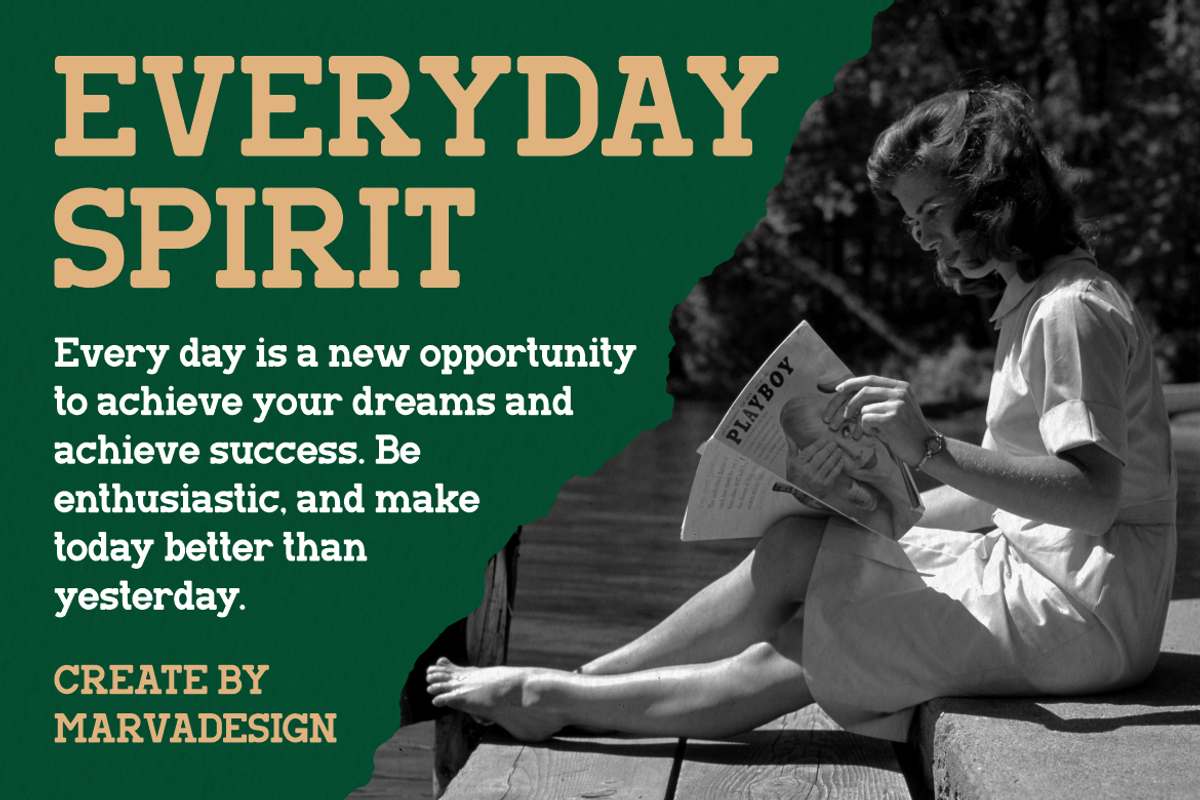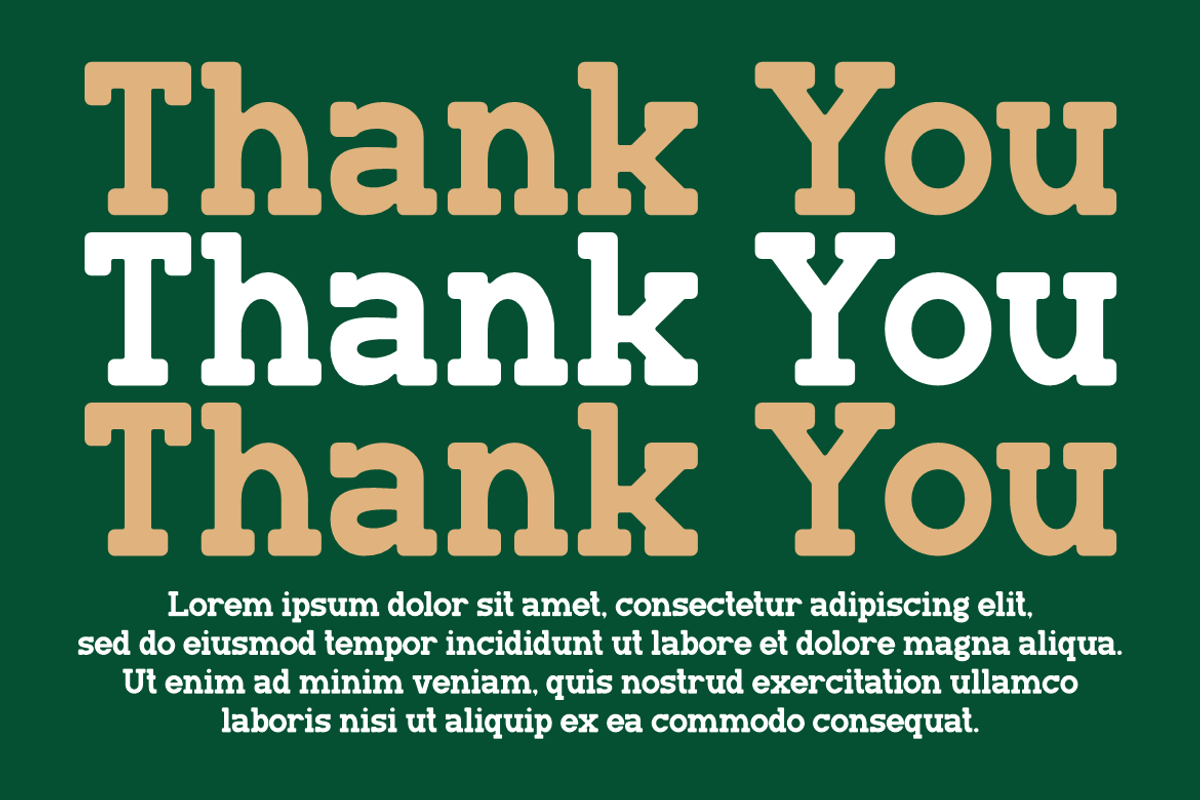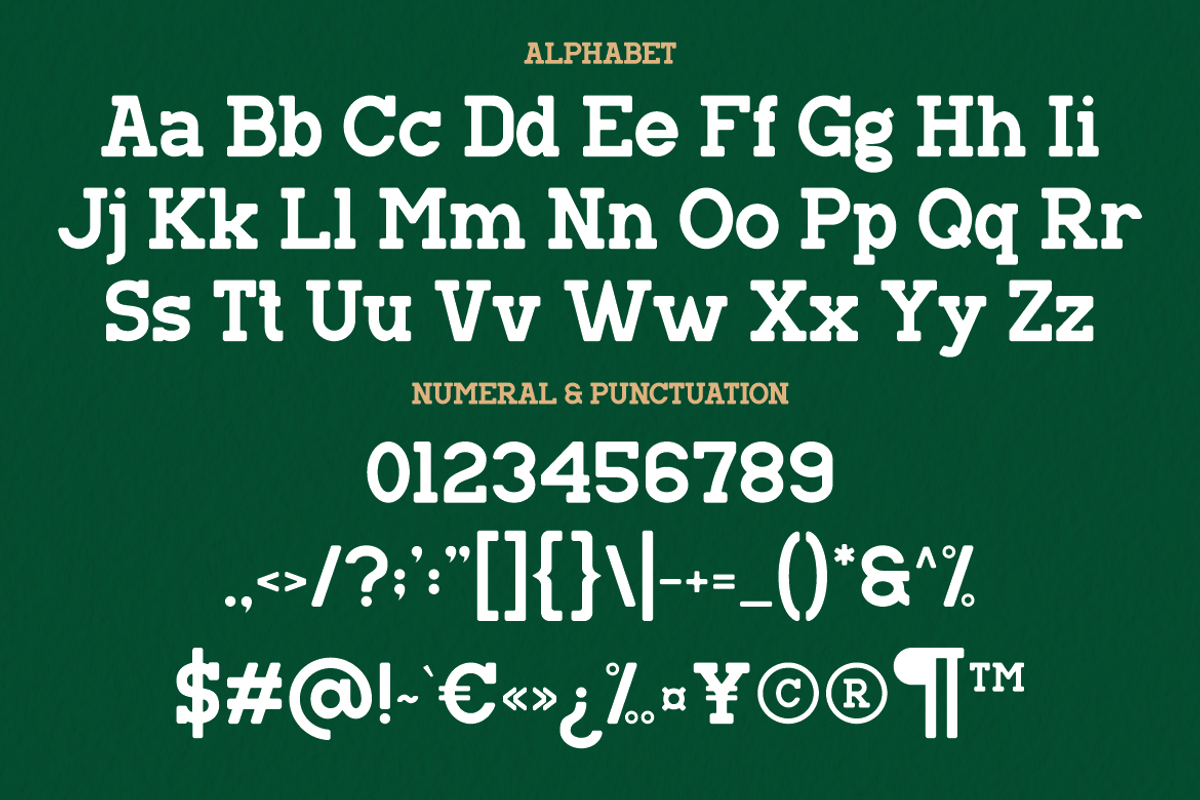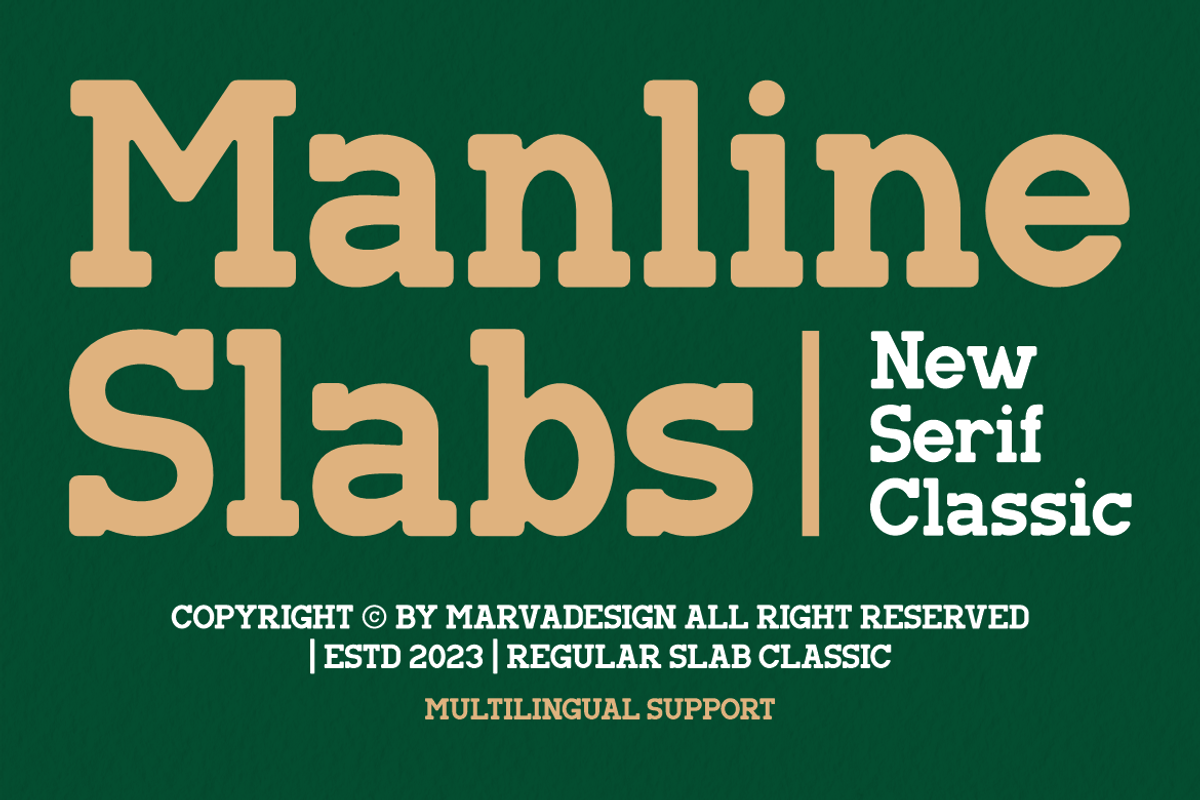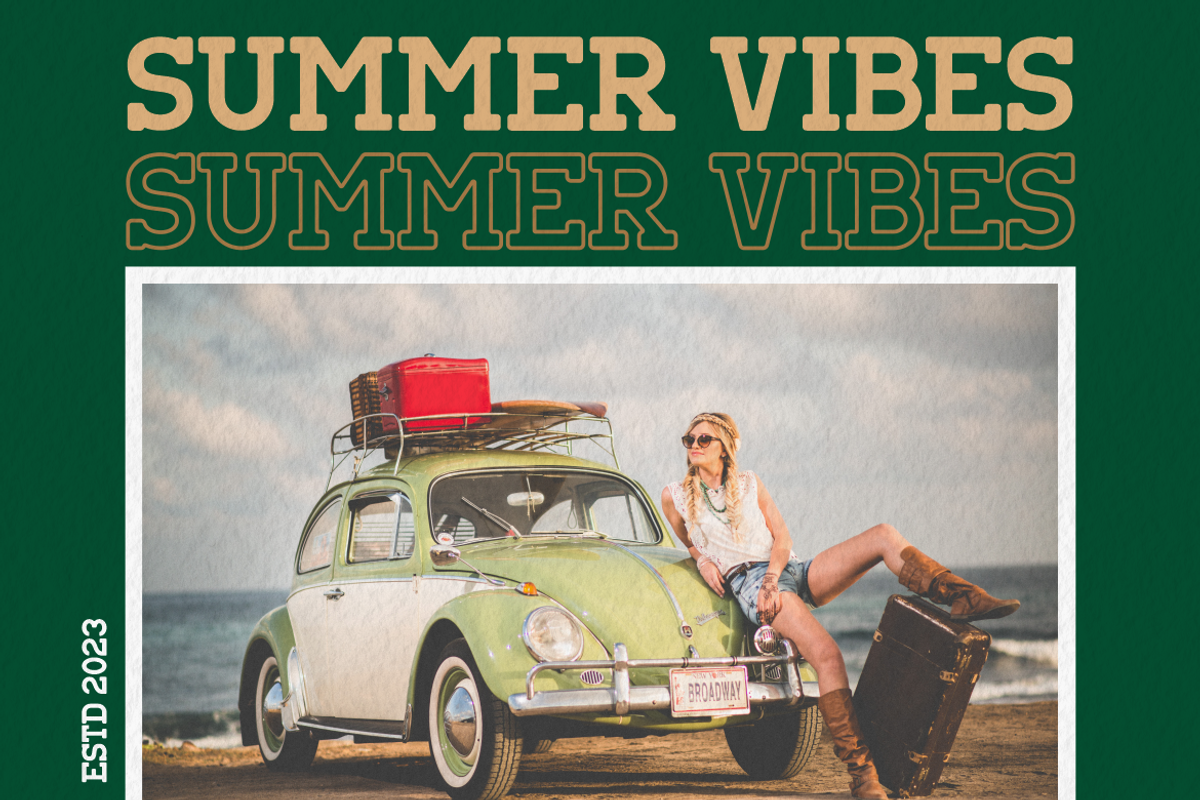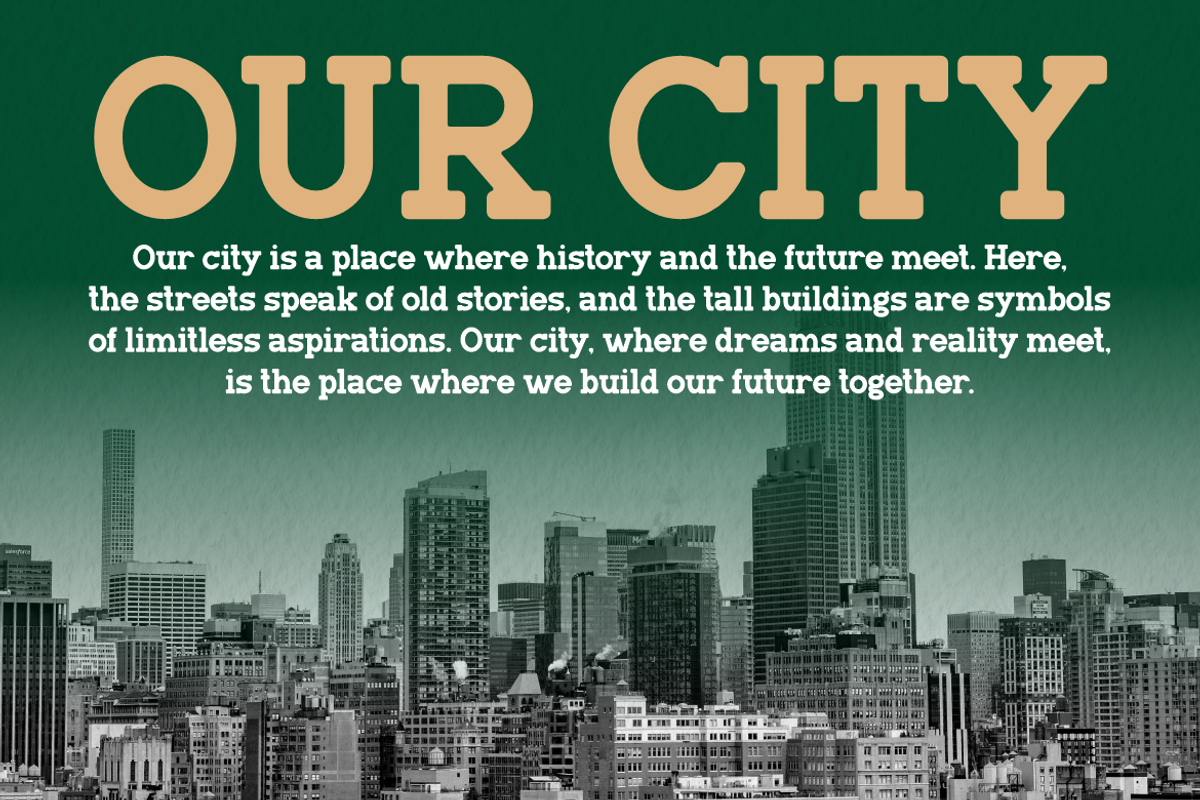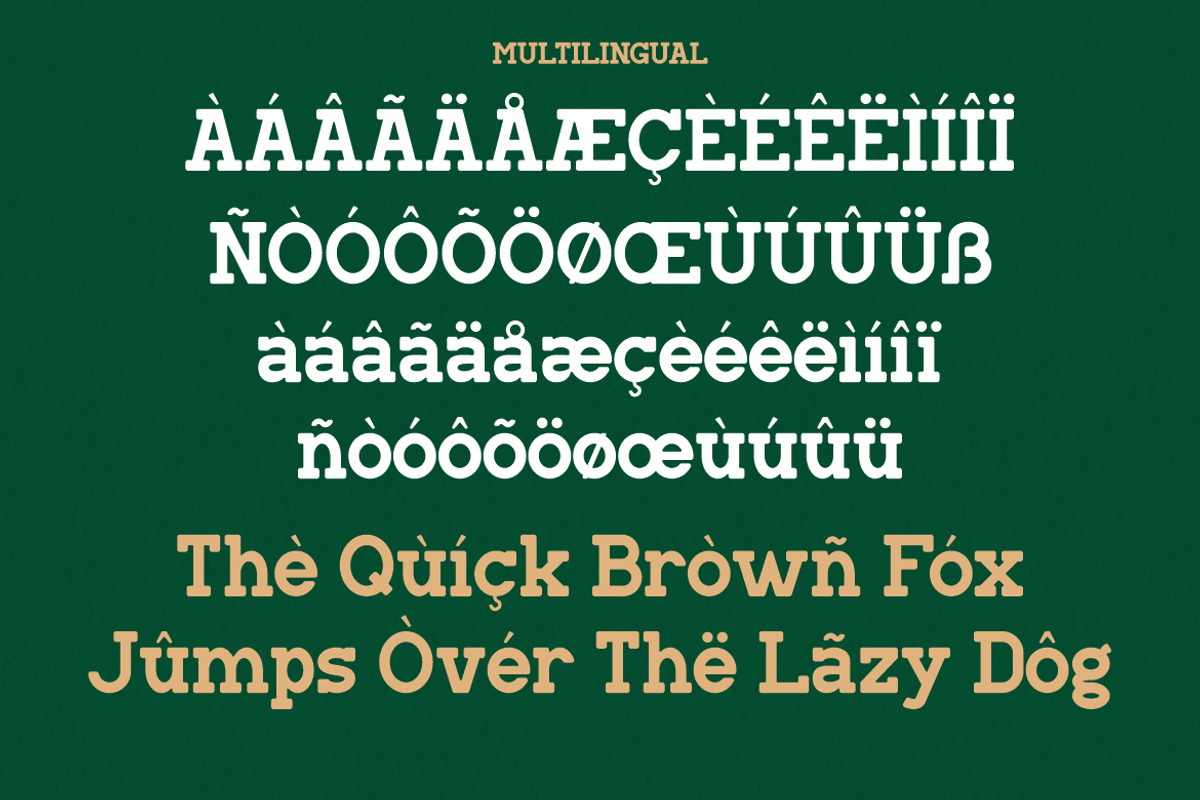
Manline Slabs - A Classic Slab Font
Introducing Manline font is a bold and distinctive slab serif typeface that combines a classic yet modern aesthetic. Characterized by its strong, blocky serifs and rounded edges, this font exudes a sense of stability, confidence, and timeless appeal. The well-balanced letterforms provide excellent readability, making it a versatile choice for a variety of design applications. Designed with a vintage touch, Manline is perfect for branding, advertising, packaging, and editorial designs. Its thick strokes and uniform structure make it ideal for headlines, signage, and display purposes, ensuring a strong visual impact. The font also includes a comprehensive set of uppercase and lowercase letters, numerals, punctuation, and special characters, offering multilingual support. With its warm and friendly appearance, Manline adds a nostalgic yet contemporary feel to designs, making it suitable for retro-themed projects as well as modern branding needs. Whether used for posters, logos, apparel, or product packaging, this typeface delivers a unique and memorable typographic experience.